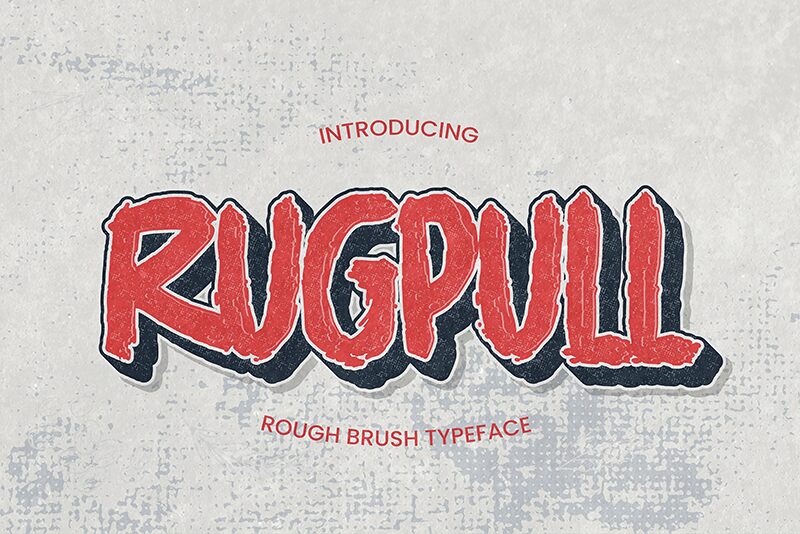
Rugpull
Unleash your project's hidden charisma with Rugpull, the brush-style typeface crafted by the innovative minds at Gassstype.
This semi-bold font dances on the page with a raw, energetic aesthetic that captures the essence of hand-painted signage and urban artistry. Perfect for designers looking to inject authenticity and a touch of rebellion into their work, Rugpull boasts an edgy versatility that makes it ideal for everything from attention-grabbing branding to evocative editorial layouts.
Embrace its distinctive flow and let Rugpull transform your creative ideas into captivating visual stories that stand out in today's cluttered digital landscape.